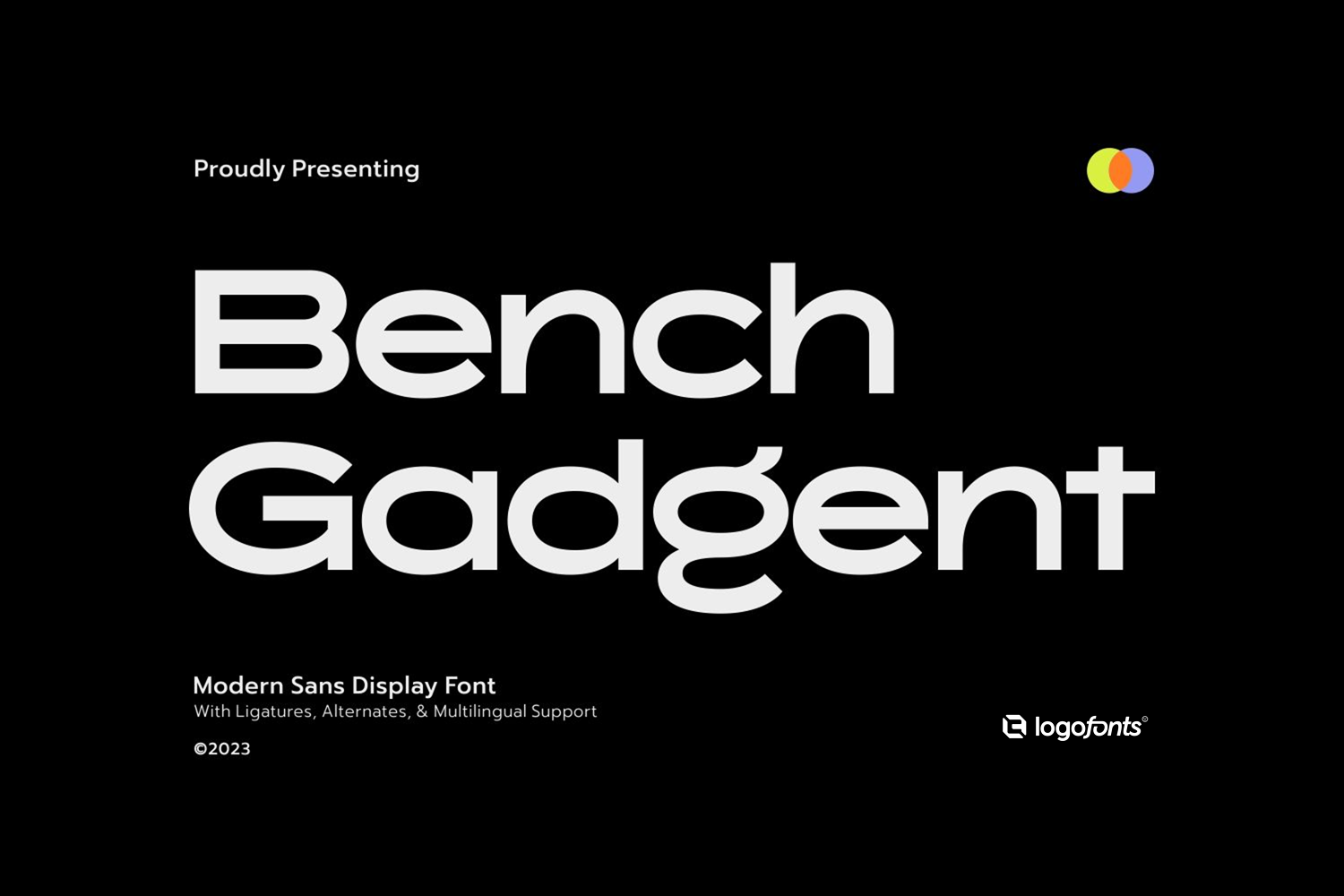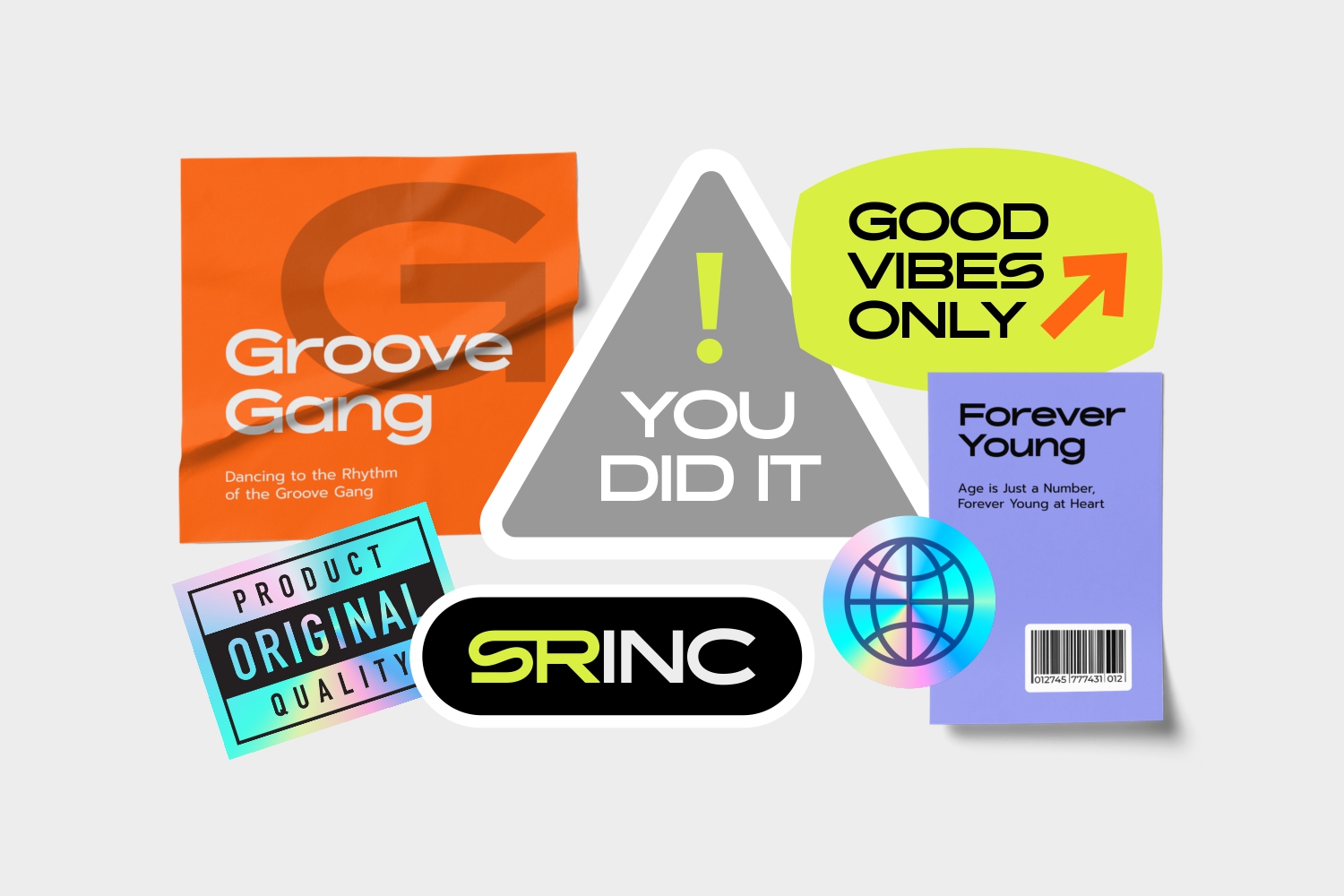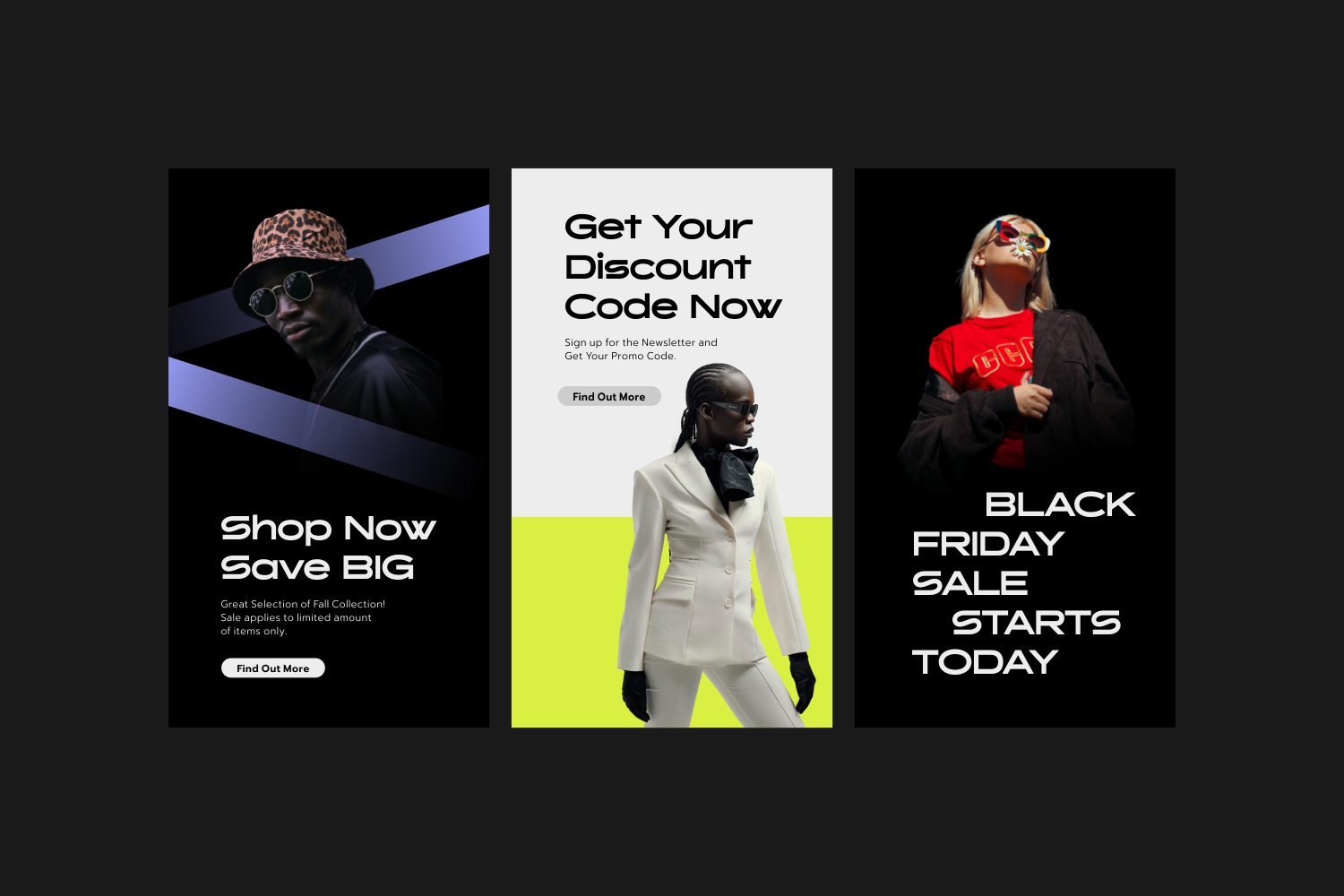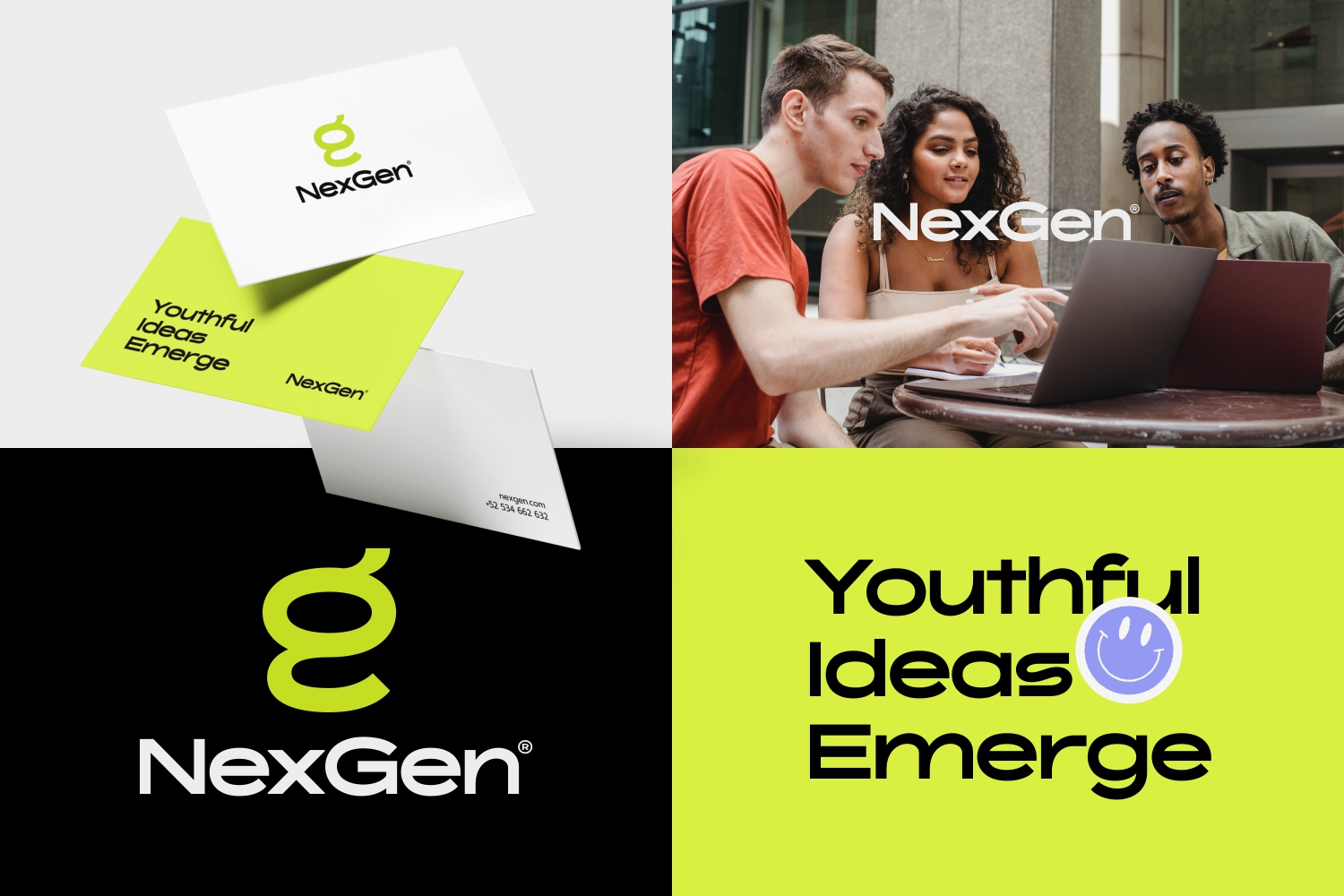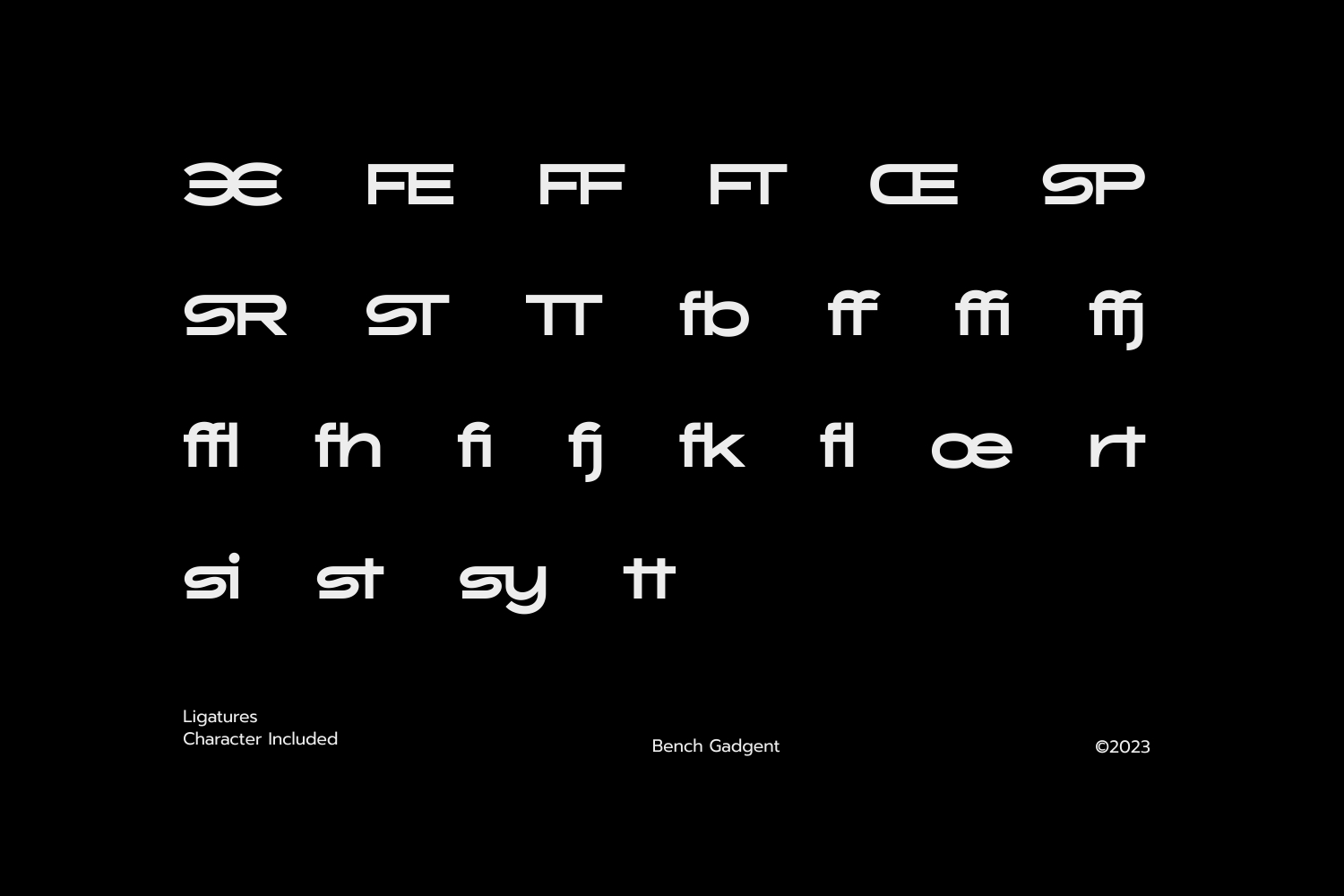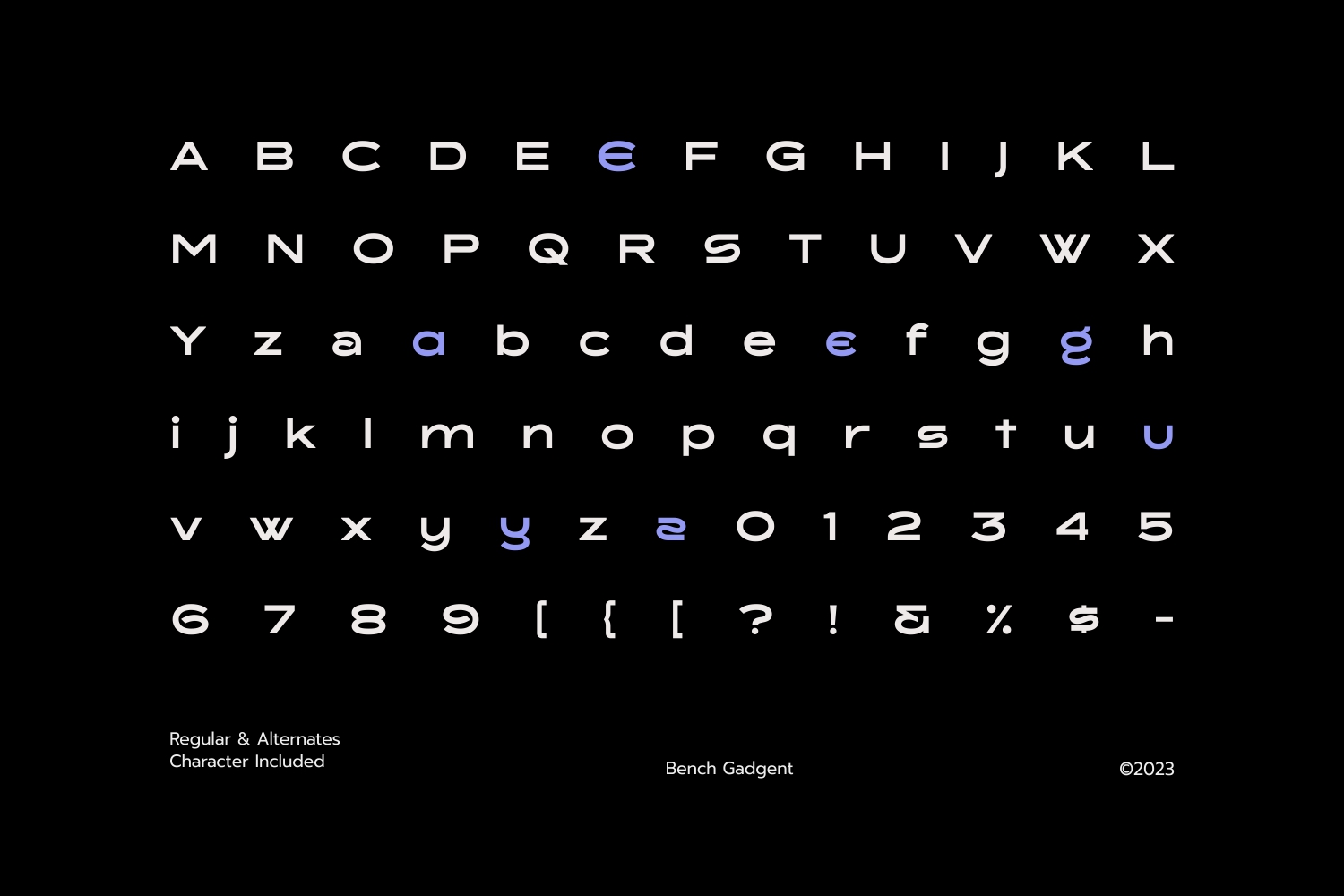
Bench Gadgent is a sleek and modern sans serif display font that blends futuristic style with geometric minimalism. With its bold curves, smooth terminals, and sharp ligatures, this font is designed for high-impact visual identities. It works perfectly for branding, tech startups, fashion promotions, and editorial layouts that need a forward-looking and youthful voice.
Complete with stylistic alternates and multilingual support, Bench Gadgent offers both versatility and distinctiveness. Whether you’re crafting a trendy logo, packaging design, or digital campaign, this typeface ensures your message stands out with modern sophistication and playful edge.